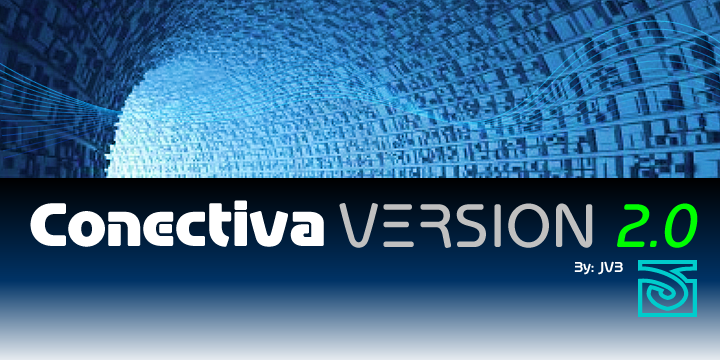
Conectiva™
by JVB Fonts
The Conectiva Font Family was designed by John Vargas Beltrán and published by JVB Fonts. Conectiva contains 12 styles and family package options.
This font family with cyber, spatial, and virtual connotations offers a decisive futuristic and techno spirit. Inspired by geometric forms from visual tendencies in the early 2000s, it was used once in corporate identity. Originally created in 1998, it remained unpublished by its author until year 2010. With one alternate for H and more diacritics and ligatures and extended range glyphs, Conectiva can be used in titles and display text that require a futuristic and dynamic style. Conectiva has been arranged and improved with more glyphs and new OpenType features (Fractions, discretional and standard ligatures, slashed zero and more new stylish alternates). Multilingual, Conectiva covers over than 200 languages, including new diacritics and new stylish second set for /a/ and its diacritics. This upgrade for 2024 includes 5 new italic weights, Uppercase German eszett, schwa (upper & lowercase) and new diacritics were added. Recommended for games, presentations, or any graphic pieces that reveal and need futuristic, techno, and/or Sci-fi style.
Designers: John Vargas Beltrán
Publisher: JVB Fonts
Foundry: JVB Fonts
Design Owner: JVB Fonts